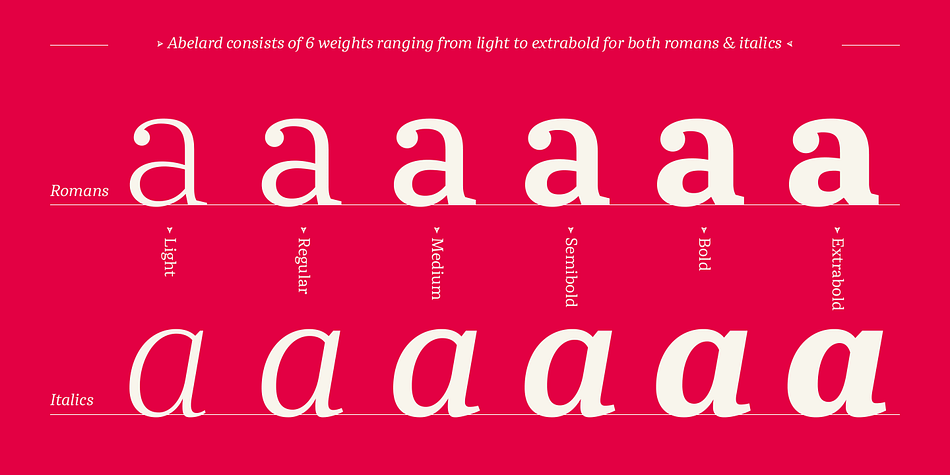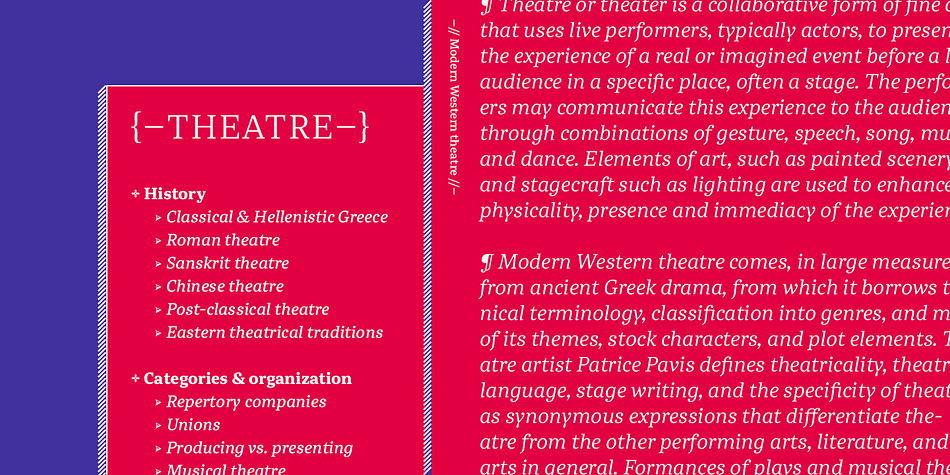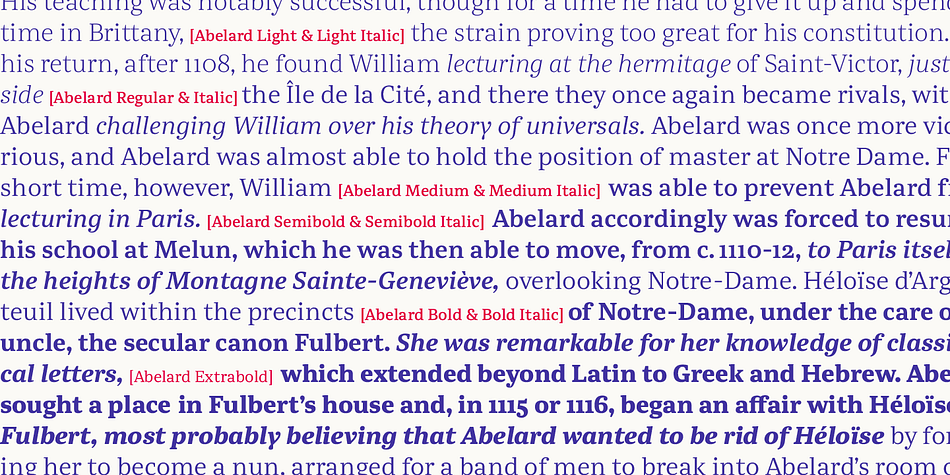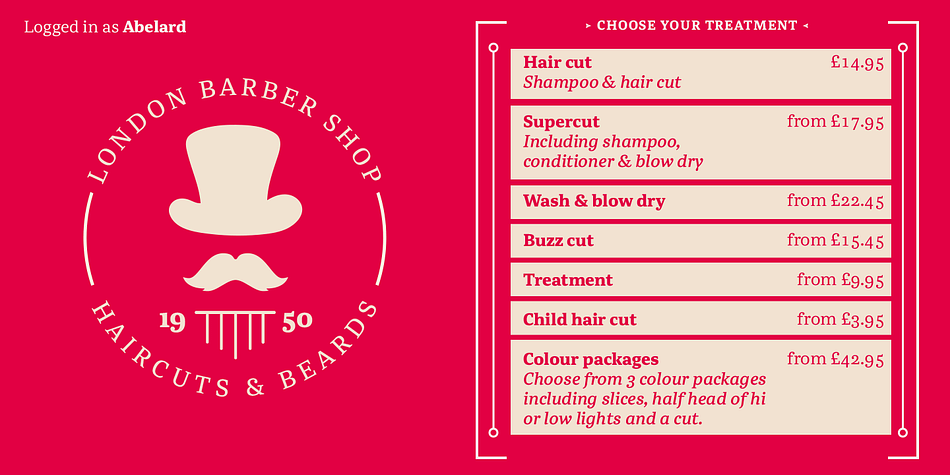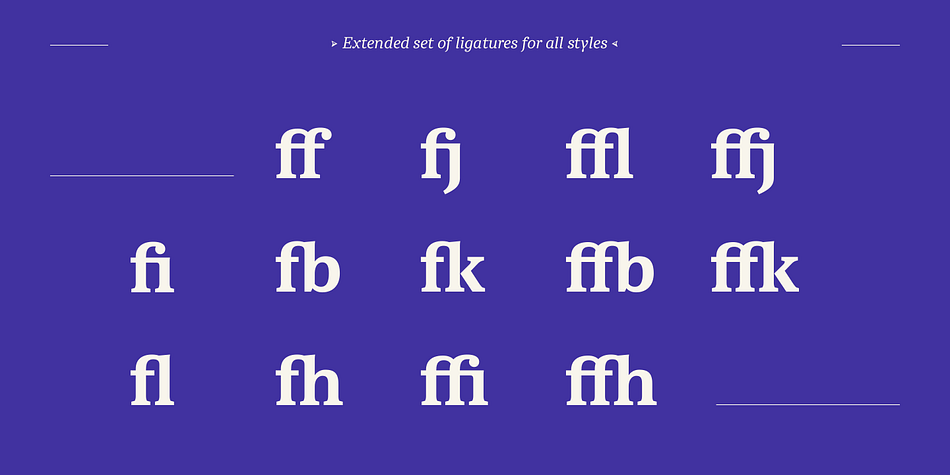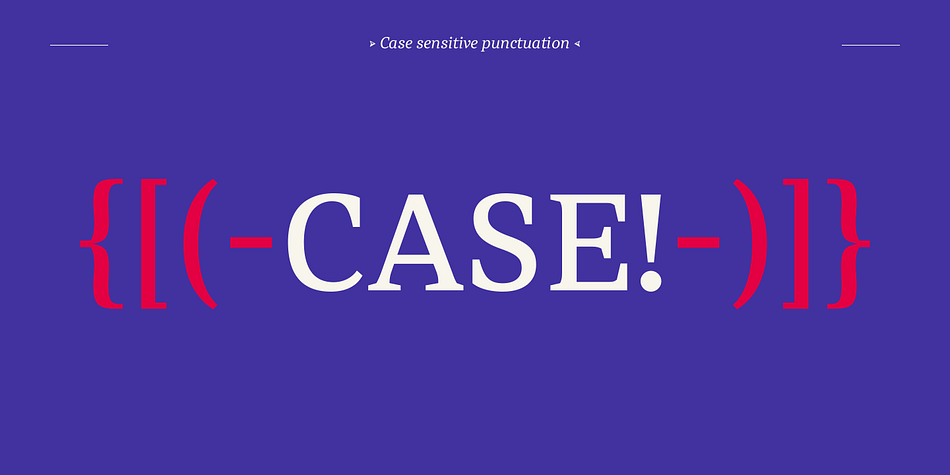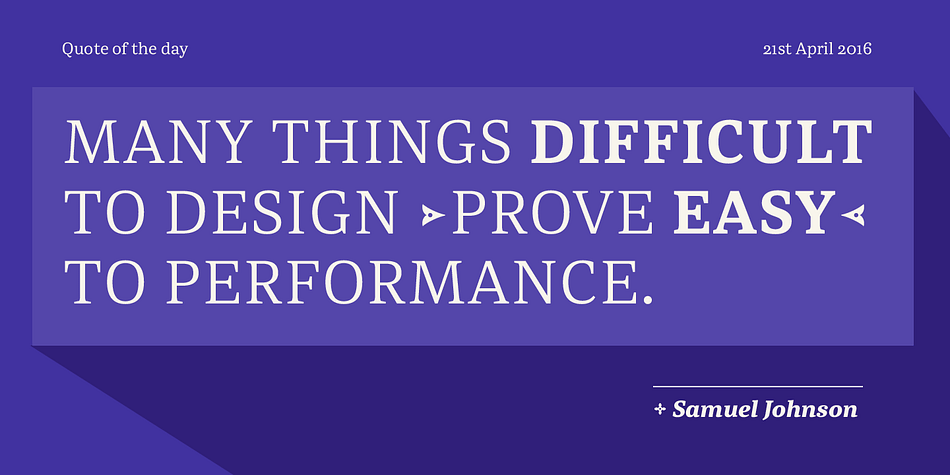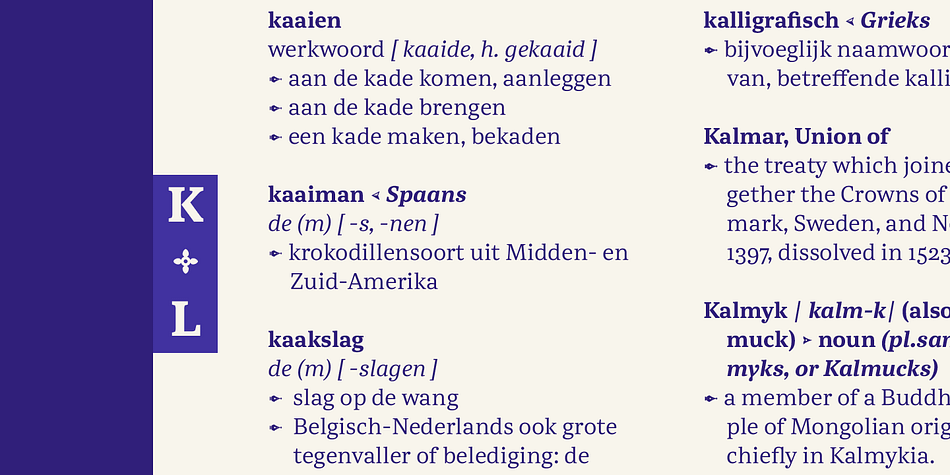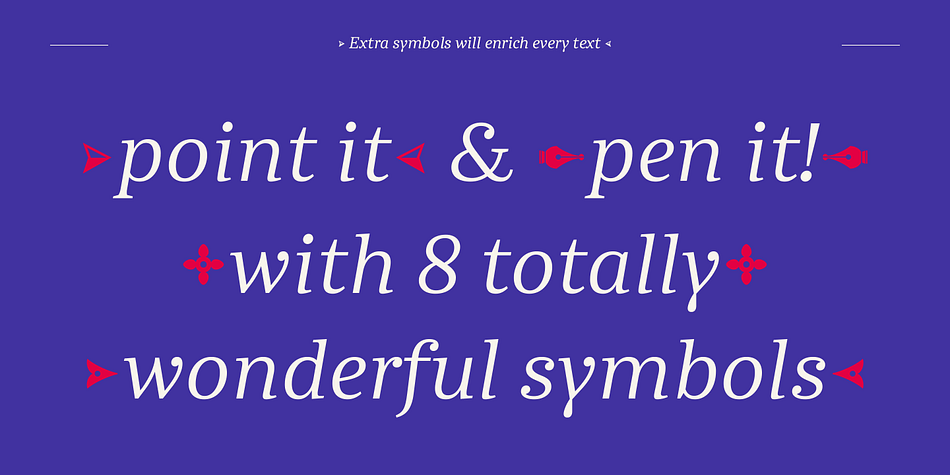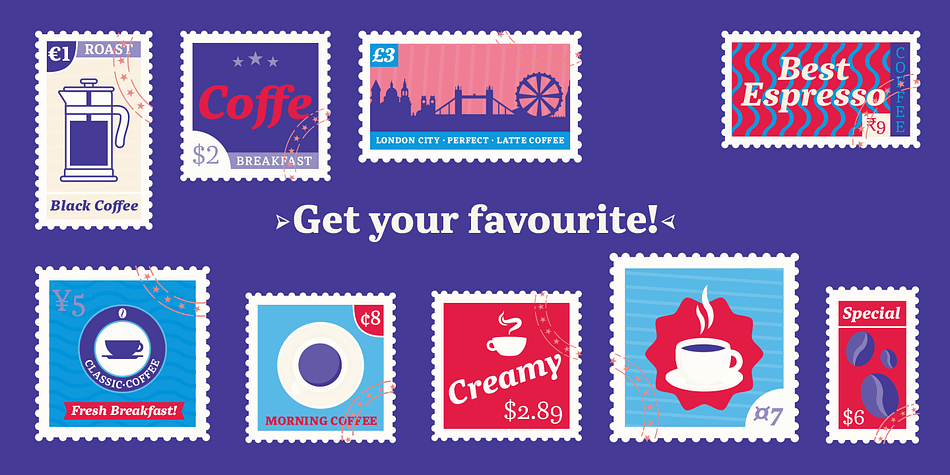
Designed by Barbara Bigosińska, Abelard is a serif font family. This typeface has twelve styles and was published by Indian Type Foundry.
Abelard is a modern (or neoclassical) family with 10 font styles. It is a contemporary take on classic types like Baskerville, Bulmer, and Scotch Roman that has been optimized for text embedding on eReaders. The design features elements ensuring even text color, including case-sensitive forms, prominent punctuation marks, ligatures, and four sets of figures. Each font also contains ornaments resembling pen nibs, bullet points, and arrows. Abelard’s capitals are quite similar in width. The lowercase letters feature open apertures, a moderate x-height, mild stroke-contrast, and ball terminals. The lowercase ‘f’ and ‘r’ are narrow. While Abelard’s roman styles are elegant and sober, the italics are more flamboyant – just look at the lowercase ‘y’ in each italic font. Abelard’s italics are slightly narrower than the romans, and lighter in weight. The italic ‘v’, ‘w’, and ‘y’ each have their right arm curved, which improves their spacing.
Foundry | Indian Type Foundry |
Designer | Barbara Bigosińska |